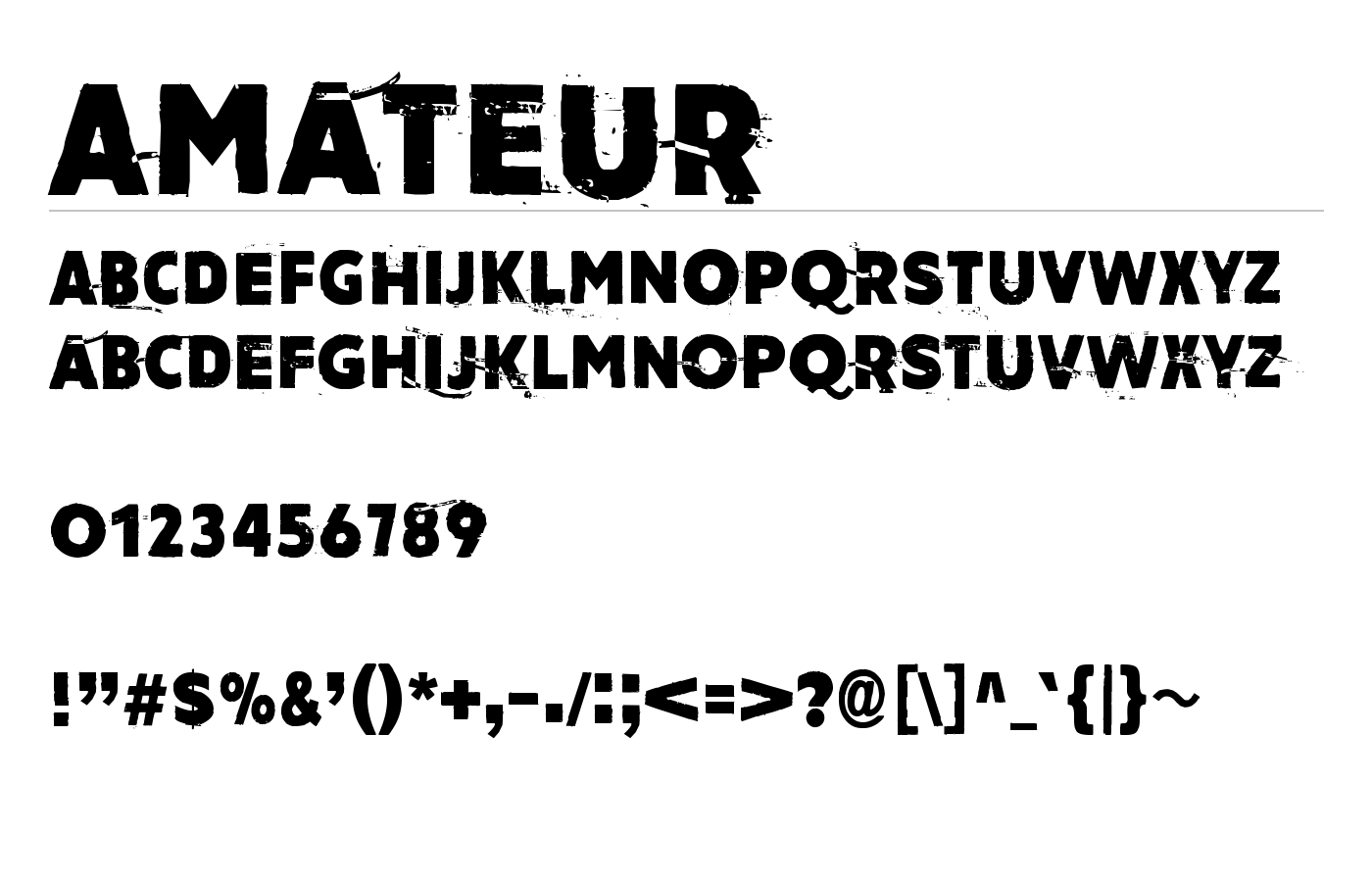
Amateur Font is a bold, distressed sans serif typeface with a rough, imperfect texture that gives it a rebellious and hand-crafted feel. Its strong, blocky letterforms with uneven edges and grunge-effect details make it perfect for edgy, informal designs like posters, streetwear branding, or music-related projects where personality and impact are key. This font works best in large sizes for headlines or logos where its unique texture can shine.
Amateur Font
About Amateur Font
| Font family | Amateur Font |